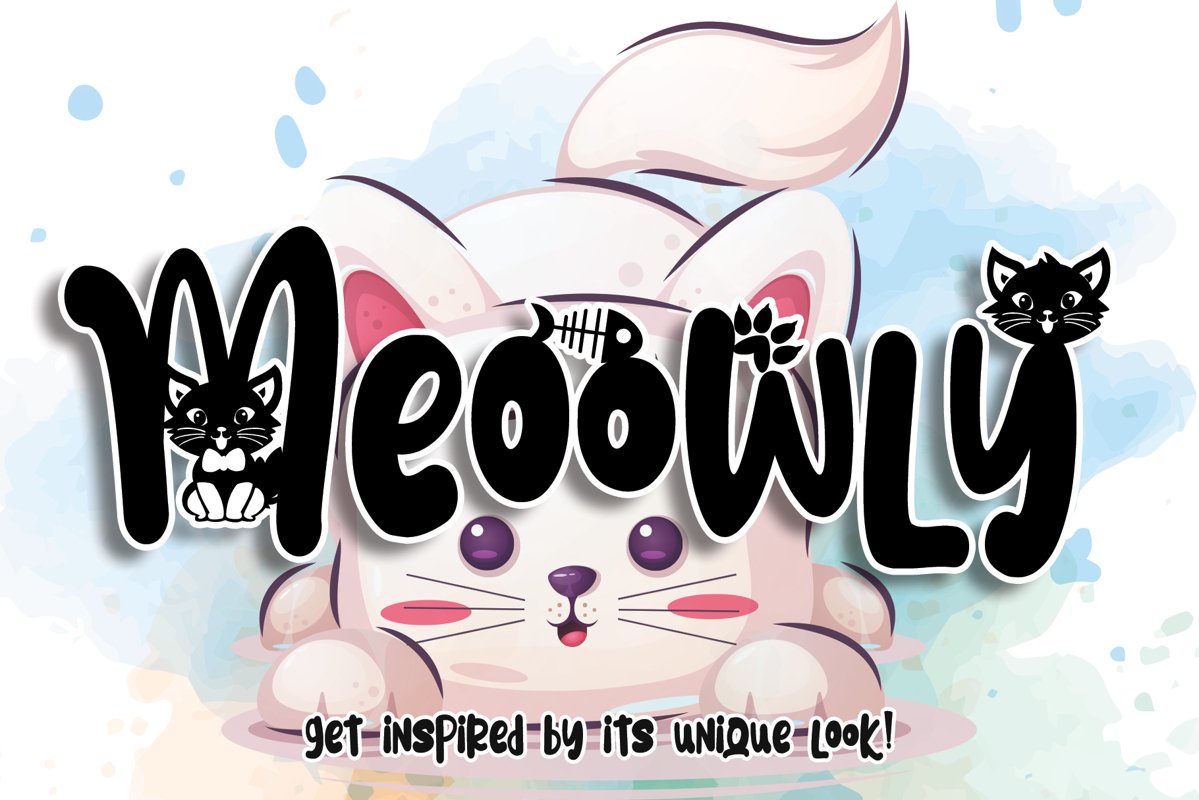
Meoowly
Meoowly is an amazing display font. It is the perfect choice for cat related and anything
project! This font is PUA encoded which means you can access all of
the cute glyphs and swashes with ease! It also features a wealth of special
features including alternate glyphs and ligatures.